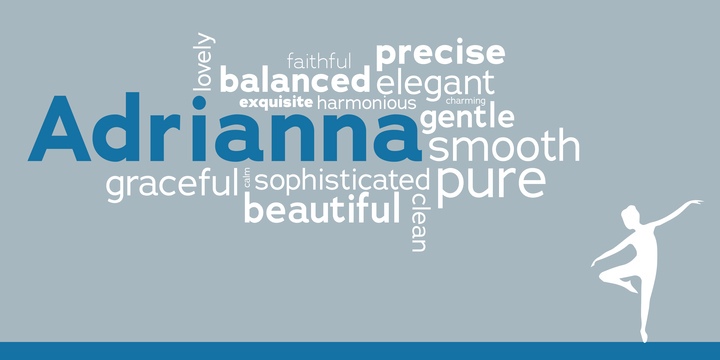
Adrianna Font
Adrianna Font is perfect for feminine lifestyle branding, romantic wedding stationery, boutique fashion labels, beauty salon signage, elegant blog headers, luxury spa marketing, sophisticated jewelry advertisements, and graceful personal branding.
What makes Adrianna Font exciting is its graceful sophistication that embodies timeless feminine elegance and refined personal style with classic beauty and contemporary appeal. The font features elegant letterforms with flowing curves and sophisticated proportions that evoke silk dresses, handwritten letters, and the effortless grace of confident femininity. Its distinctive elegant styling and feminine appeal communicate refinement, personal style, and sophisticated charm, making every message feel wrapped in elegance and touched by the timeless beauty of feminine grace.
The Adrianna Font family includes regular weight with uppercase and lowercase letters, numerals, punctuation marks, and special characters. Premium versions often feature stylistic alternates and elegant flourishes that enhance the sophisticated, feminine aesthetic perfect for luxury and personal branding applications.
This enchanting feminine typeface brings instant elegance and sophisticated charm to any beauty-focused project. Adrianna Font Free Download offers exceptional value for businesses targeting sophisticated women who appreciate refined aesthetics, personal style, and the timeless appeal of feminine elegance.
The graceful character of Adrianna Font makes it particularly valuable for luxury beauty brands, wedding planners, and sophisticated lifestyle services. Its excellent readability ensures personal messaging and product information remain clear while maintaining the distinctive elegant aesthetic that appeals to women seeking refined experiences and sophisticated personal expression.
Feminine brand marketers appreciate how Adrianna Font effortlessly conveys sophisticated elegance and personal refinement. The font's graceful proportions and elegant details create beautiful brand materials that establish emotional connections with audiences who value feminine sophistication, personal style, and the elegant expression of individual beauty.
The versatile elegance of this typeface extends to fine jewelry marketing, luxury fashion consulting, and sophisticated event planning where feminine authenticity enhances brand appeal. Adrianna Font Free Download provides creative professionals with an essential tool for developing memorable, elegance-driven designs that resonate with audiences who embrace feminine sophistication, personal style, and the graceful beauty of refined feminine expression in their lifestyle and fashion choices.